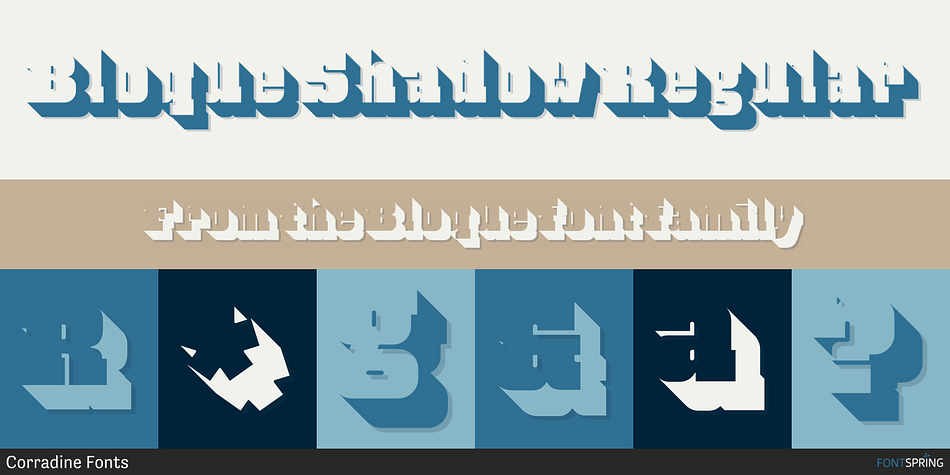
Bloque Shadow Regular
Designed by Manuel Corradine, Bloque is a display slab and slab serif font family. This typeface has six styles and was published by Corradine Fonts.
Bloque is a heavy slab font family which contains six fonts. It has three layers for both roman and italic styles, including an inline and a shadow versions to make different color combinations
Foundry Corradine Fonts
Styles Display Slab, Slab Serif
Designer Manuel Eduardo Corradine